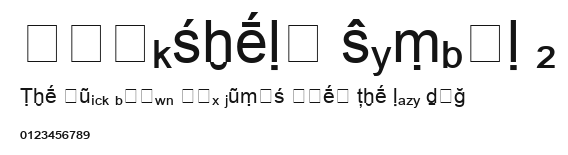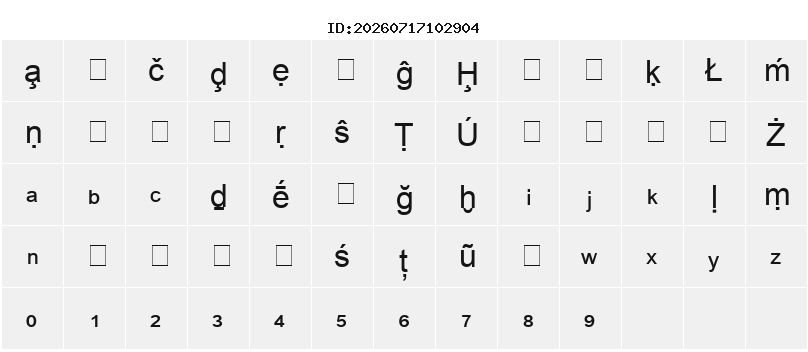
Bookshelf Symbol 2 Preview
• Font Name: Bookshelf Symbol 2
• Font ID: Monotype - Bookshelf Symbol 2 (Arial)
• Full Font Name: Bookshelf Symbol 2
• Version: Version 2.01
• PostScript Name: BookshelfSymbolTwo-Regular
• Character Count: 154
About Bookshelf Symbol 2.ttf
Bookshelf Symbol 2.ttf is a modern, elegant sans-serif font designed for ultimate readability and visual harmony. Perfect for branding, headlines, web design, and print materials.